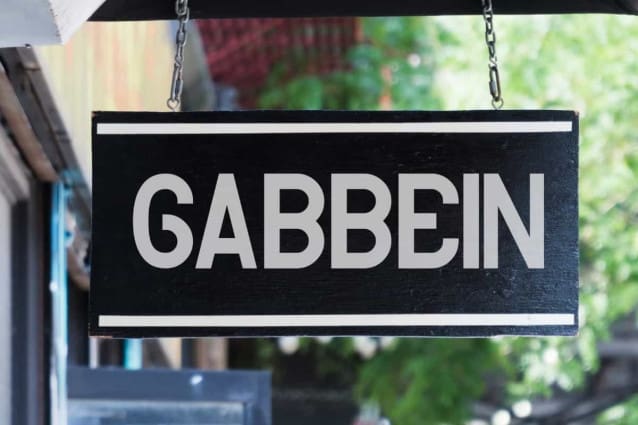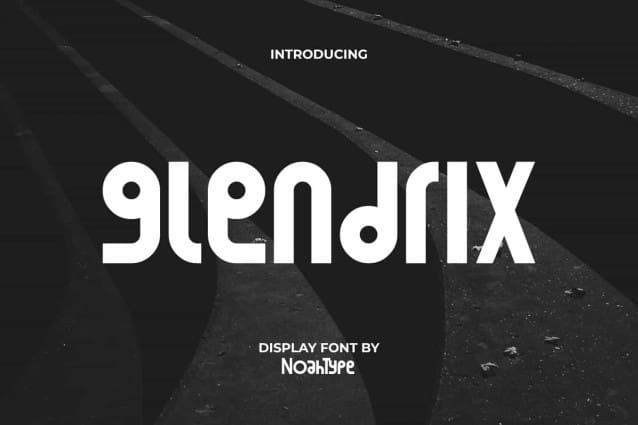
Glendrix Font
Glendrix Font is a fun unique stylish display font by NoahType. This font has a unique and fresh style to add to every project you create. It will be good for any designs, such as brand image, cover, custom design, invitation, label, marketing material, menu, poster, product packaging, quotes, signage, stationery, web, and many more!
Glendrix Font includes a complete set of Uppercase and Lowercase Basic Characters with different looks for both, Numerals, Punctuation, and Symbol. The characters of this font will give trendy look and also a perfect choice for many industries, such as accessories, advertising, camping, event or festival, fashion, movie, photography, printing, publishing, sport, travel, etc.